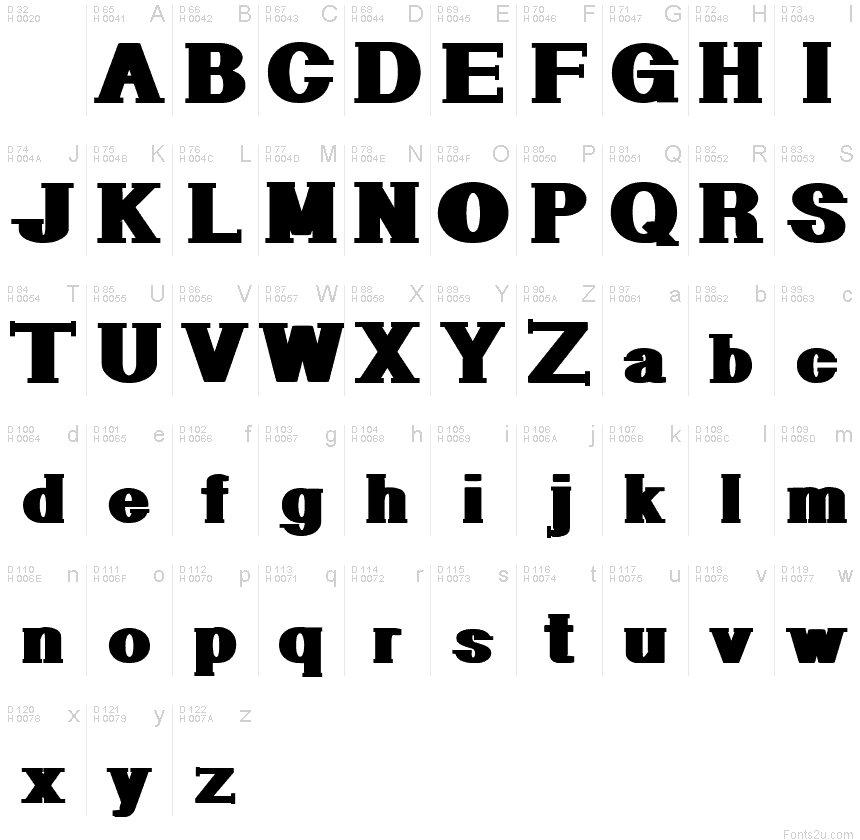
GeometricSerif
Geometric Serif font by Intellecta Design is a free decorative serif typeface with a bold, almost blocky presence. Huge round counters press up against thick, straight stems, while the serifs feel more like sturdy platforms than delicate feet. The result is a chunky, inky texture that reads like woodtype pressed hard into paper—strong, tactile, and unapologetically graphic.
Using Geometric Serif, titles grab attention in a single, heavy thump, making this free font a natural fit for posters, packaging, logos, editorial spreads, and bold website headers. It shines on music covers, event branding, and statement T‑shirts where you want letters to feel like shapes. For balance, pair it with a clean geometric sans in smaller text, and let Geometric Serif stay big and loud to do the talking.